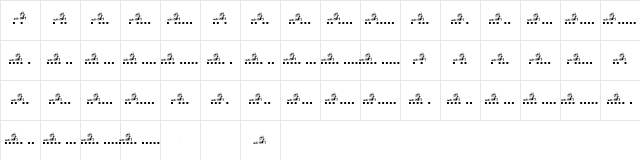
pf_MC morse_Vietnam_POWs_1965 Regular
Design Context for pf_MC morse_Vietnam_POWs_1965 Typeface
pf_MC morse_Vietnam_POWs_1965 is a composed and adaptable typeface that performs quietly and consistently across a wide range of design contexts.